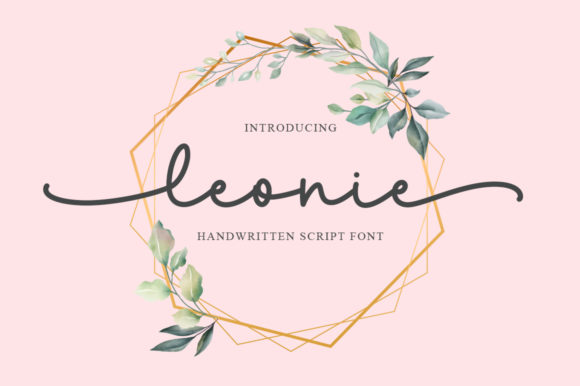
Behold, the Leonie Font: A Symphony of Beauty, Flow, and Elegance
In the realm of typography, Leonie Font stands as a shining beacon of grace and sophistication. A captivating script font that dances like a ballerina across your digital canvas, Leonie is sure to ignite the flames of your creativity.
With its smooth curves and delicate strokes, Leonie embodies the essence of femininity and charm. Inspired by the allure of handwritten letters, this font possesses an organic quality that weaves a magical aura of authenticity into your designs.
Whether you're a seasoned typographer or just starting your design journey, Leonie's user-friendly nature welcomes you with open arms. PUA-encoded, it offers seamless access to a world of glyphs and swashes, unlocking infinite possibilities for customization and expression.
Suitable for an array of projects, Leonie shines brightest in fashion branding, editorial design, and the captivating art of script tattoos. Its versatility knows no bounds, lending its charm to posters, invitations, logos, and any project seeking a touch of elegance and allure.
Embrace Leonie Font, and let your designs bloom with newfound beauty. Its enchanting presence will captivate and inspire, leaving an indelible mark on the hearts and minds of all who encounter it.